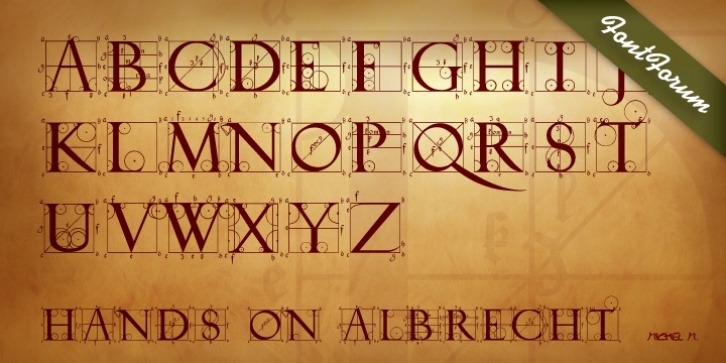
This typeface is based on Albrecht Dürer’s work “Die Underweysung der Messung” (Institutiones Geometricae, Instruction in Measurement). Please note that this font needs special treatment when typesetting text. If you need black text, you need to type just capital letters separated by spaces. If you need coloured text, type both lower case and upper case (with the lower case character first), and then assign a colour to the lowercase letters only.